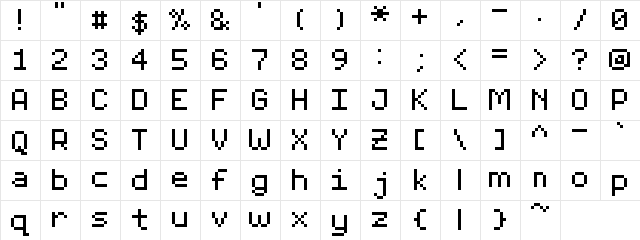
JumpNarrowNone Regular
Design Context for JumpNarrowNone Typeface
JumpNarrowNone is a composed and adaptable typeface that performs quietly and consistently across a wide range of design contexts. Its narrow stance lets it pack a punch even in space-constrained designs.
Pro Tip: Use JumpNarrowNone in both headline and body roles to test its range before committing to a single application.